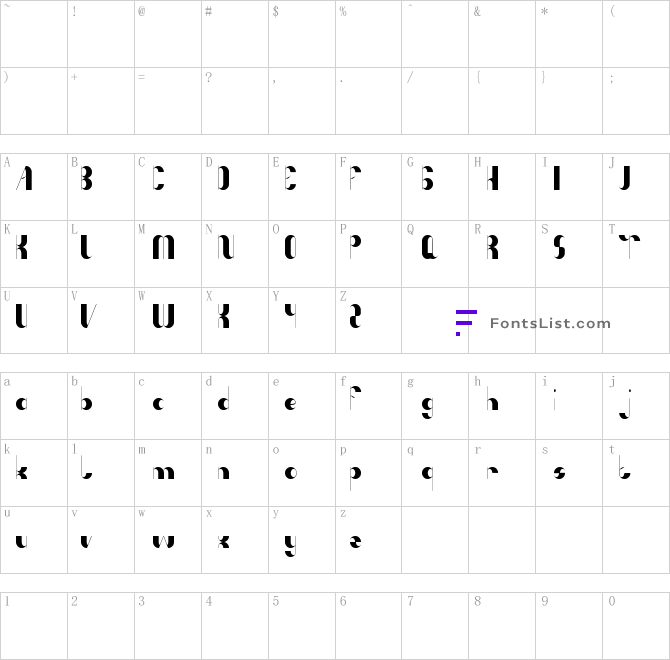
- Font Name:Anything Mean Everything
Anything-Mean-Everything.ttf is a very beautiful artistic font, Anything-Mean-Everything.ttf is widely used in the design and printing of various books and pictures,Anything-Mean-Everything.ttf has a strong visual impact,Anything-Mean-Everything.ttf is a commonly used font in newspapers, magazines and books, and is used in posters, e-commerce Poster design, store design, logo design, font design and other fields.Anything-Mean-Everything.